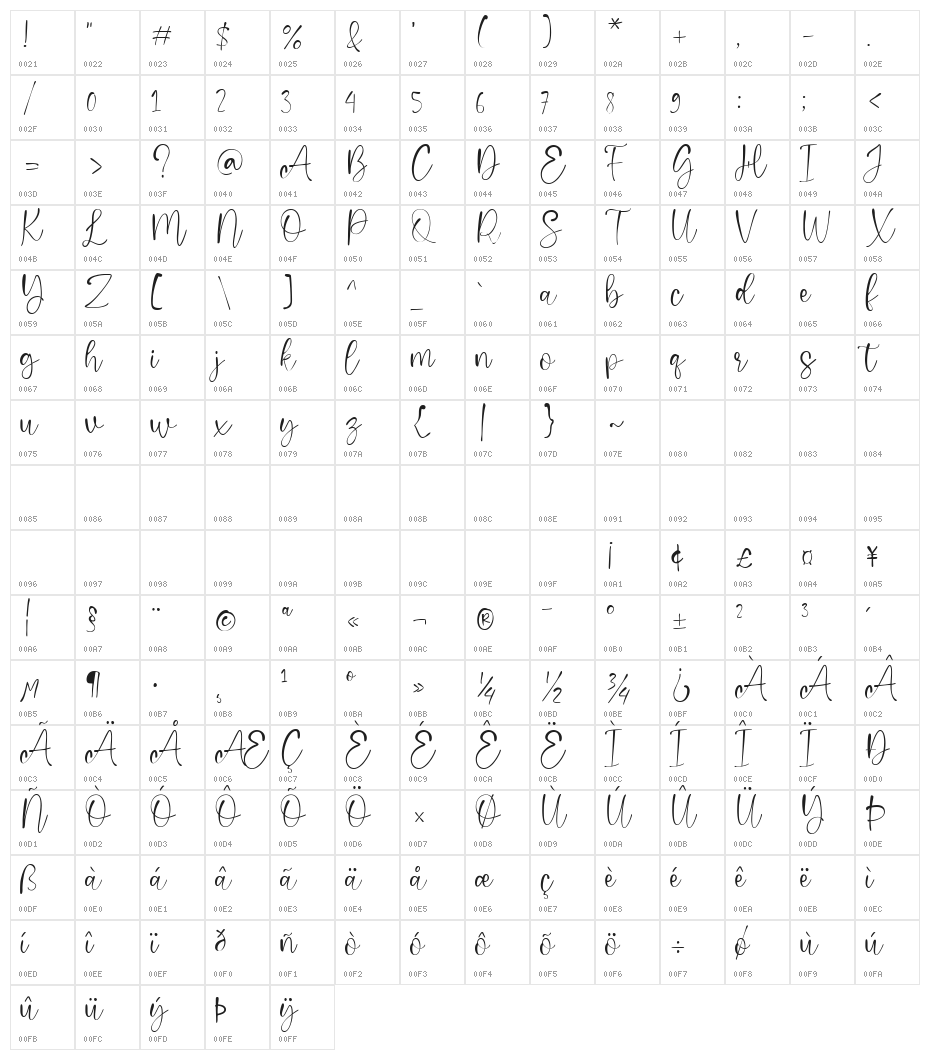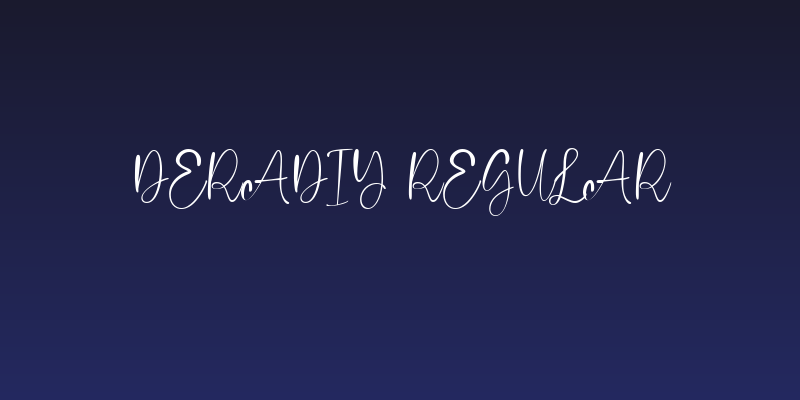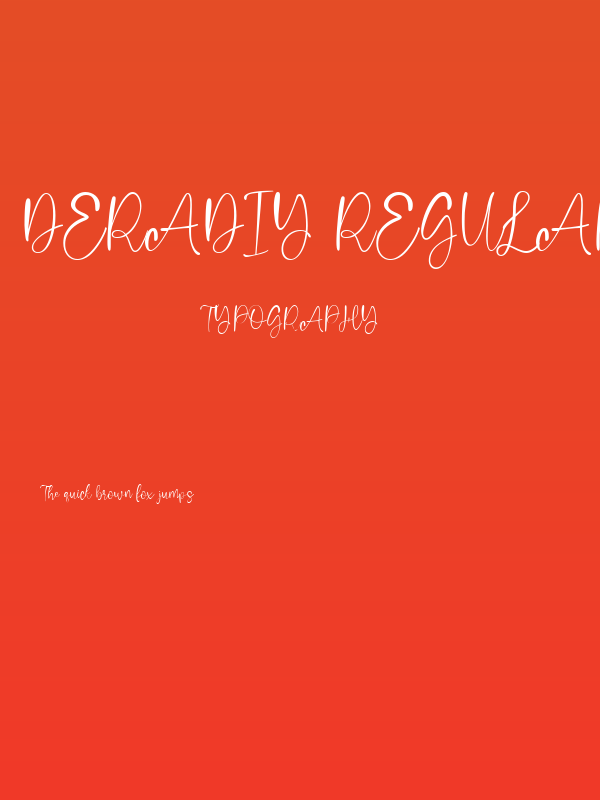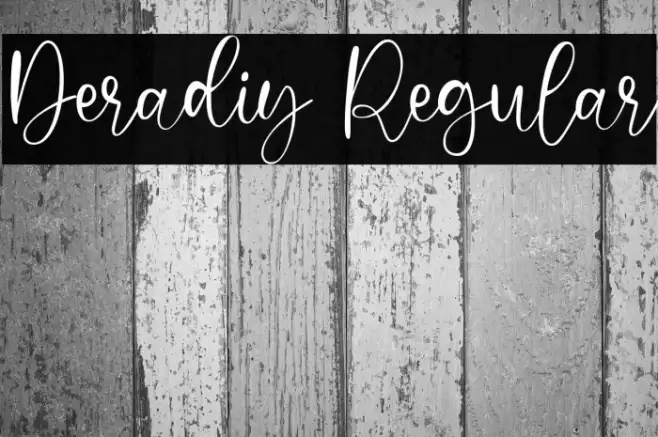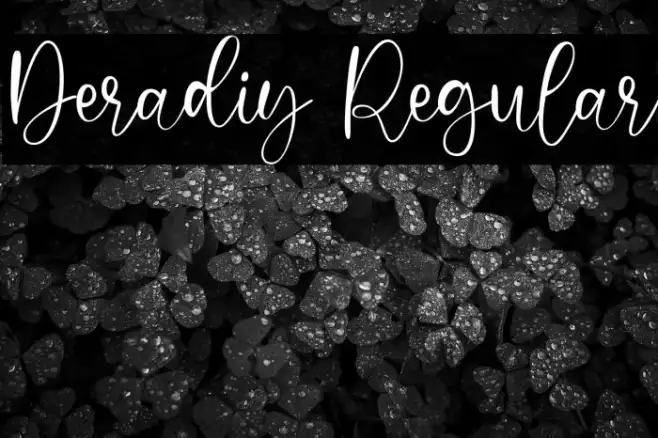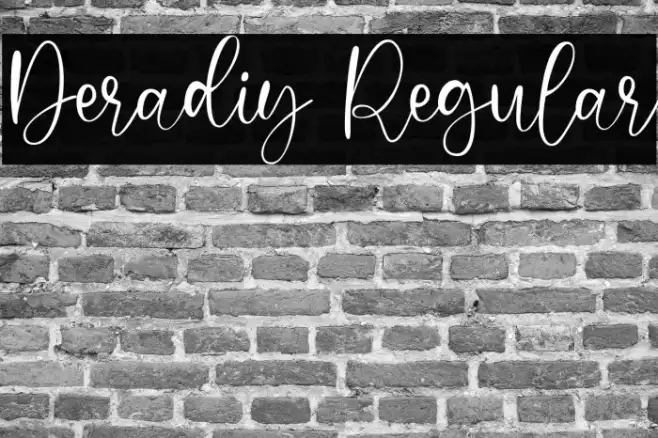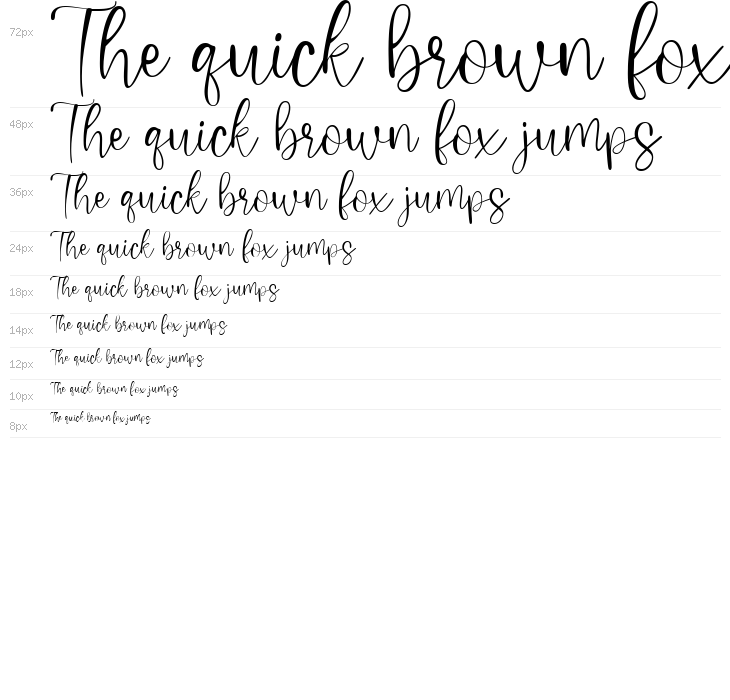
Deradiy Regular Font
Deradiy Regular Description
This font features an elegant and flowing script style, characterized by its smooth, cursive lines and graceful curves. The uppercase letters are slightly more elaborate, with flourishes that add a touch of sophistication. The lowercase letters maintain a consistent flow, making it ideal for creating a handwritten feel. The numerals are clear and distinct, complementing the overall aesthetic. Special characters are thoughtfully integrated, ensuring versatility in various design contexts. The font's overall appearance is both stylish and approachable, making it suitable for a wide range of creative projects.
| Use Case | Logos, Invitations, Social Media |
| Proposed Projects | Ideal for wedding invitations, greeting cards, branding, and social media graphics. |